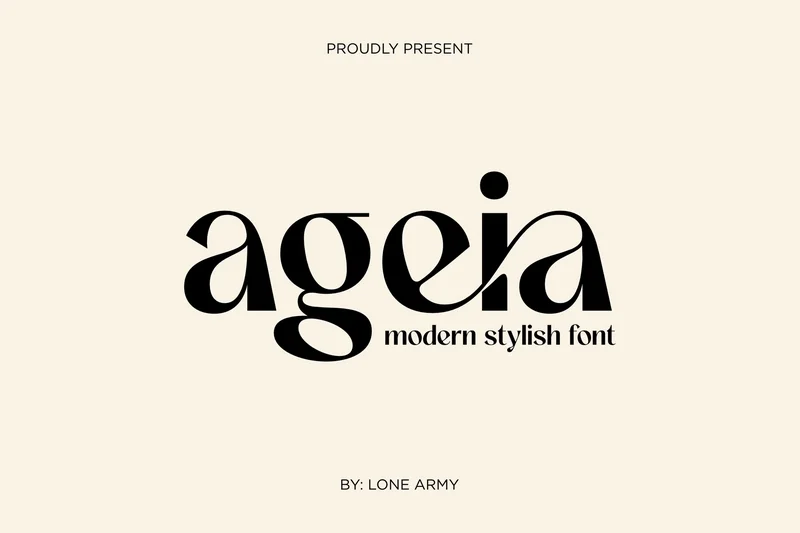
Ageia
Ageia is a modern luxury font that seamlessly blends sleek contemporary style with subtle retro flair and vibrant tropical vibes. Designed with elegant stylistic ligatures, Ageia brings a unique personality and fluidity to your typography. Perfect for fashion, branding, and lifestyle projects seeking a fresh yet timeless look that evokes warmth, sophistication, and a hint of island breeze.